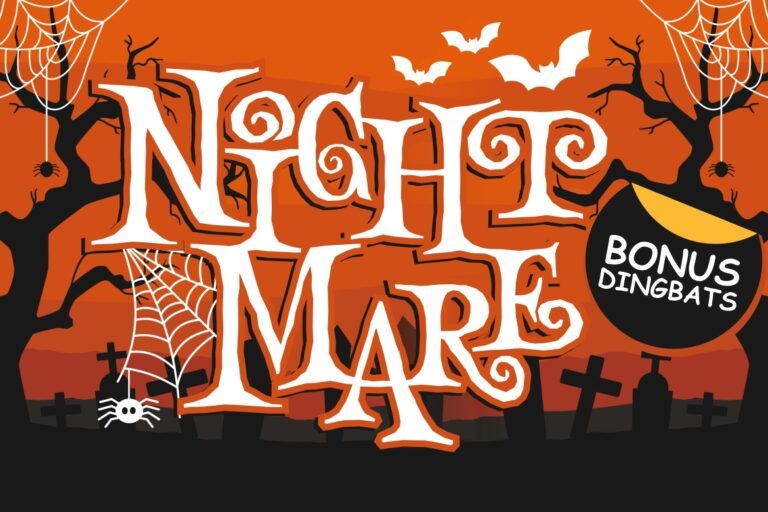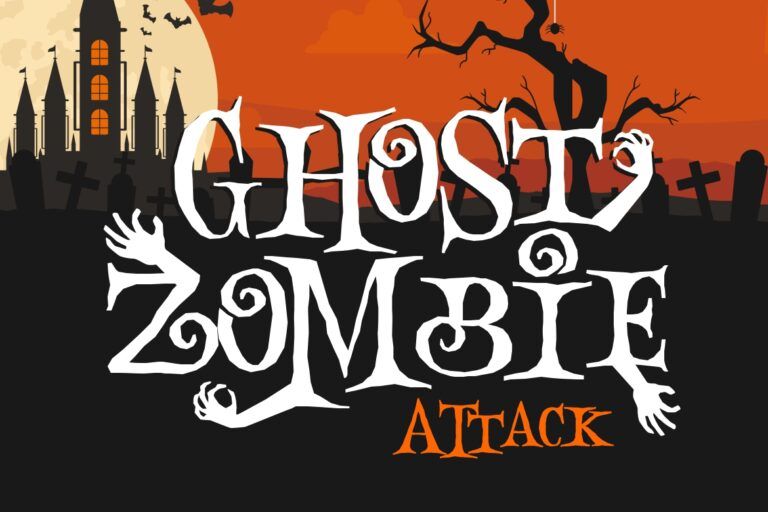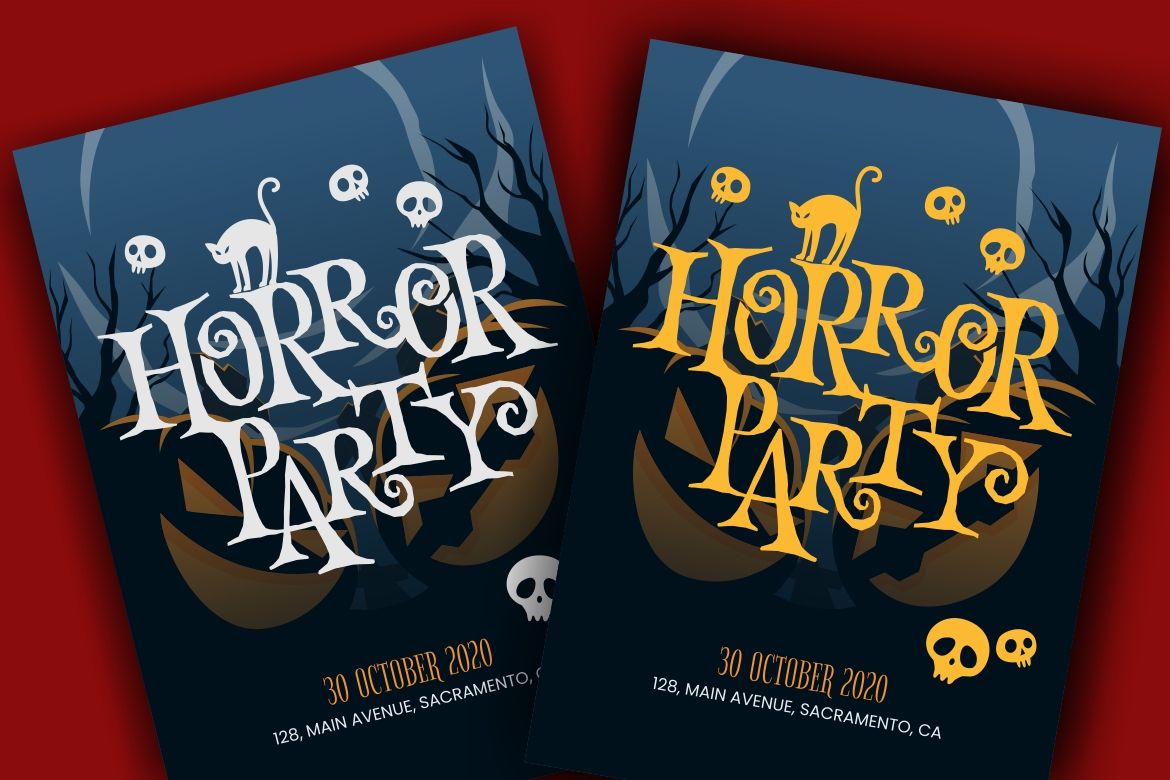
Creepy Fonts Express Nightmare in Your Design
Have you ever felt haunted by a piece of design or writing with creepy fonts?
Maybe you read it in a Halloween poster, or on a horror movie title that triggers a nightmare after you watched it.
Just like nightmares, the visual from the movie and its poster felt irrational and frightening. Yet, somehow they leave you lasting impressions. They linger in your mind.
You might wonder how creepy fonts, horror themed pieces of art, could leave such an impression on you. The design not only looks scary, but also feels scary. It somehow attracts you as an audience into a certain mood, emotion, and psychological space.
Let’s take a look at how fonts make such a powerful design element.
Psychology of Creepy Fonts
Psychology suggests that fonts carry meaning. Hence, typeface could affect audiences’ reaction. How people perceive the meaning of fonts depends on the cultural associations, historical usage, and the visual characteristics of the typeface itself.
Fonts help in connotating the message the visual art tries to convey. They influence the mood, the vibe and emotional perceptions.
Furthermore, these emotional reactions and perceptions show how fonts are such an important tool for branding and marketing. The way the fonts displayed alongside the graphic image carries the intended message.
Fonts supports the design in communicating the message. Applying the right fonts plays a crucial role for aligning the message with the intended audience’s responses.
For instance, in horror movie posters or halloween decorations. The use of creepy vibe fonts insinuates the spooky and creepy feeling. That is what the creator desired – to make you feel the creepy vibe that stays in your mind.
Creepy Fonts as Art Therapy
Who would expect that the word ‘creepy’ would be in the same sentence with therapy? What an unexpected twist.
The fact is, pieces of art, even horror themed ones, could be a form of therapy.
In the field of psychology, there is a method known as art therapy, in which you can express your deepest emotion through music, body movement, drawing, and painting.
The advancement of technology in this era allows new innovation of art therapy through graphic design.
Research and practitioners provide proof of the benefits of graphic design as art therapy. They include the improvement of emotional wellbeing and overall positive mental health condition.
Graphic design facilitates self-expression and emotional processing, just like drawing does. It allows people to dive into their feelings and emotions through visual storytelling.
Integration of graphic design into art therapy improves the therapeutic experience. This innovation of art therapy offers a diversity of ways of connecting with their inner selves which helps them heal.
Visualizing your nightmare through graphic design—surprisingly—counts. You can explore fonts that look broken, raw, twisted, or tense becomes a form of emotional release. There, you got not only a design, but also a reflection.
Bringing Nightmares into Life
Now, let’s get to know how to express nightmares and creepy feelings into graphic design.
Research shows that art therapy utilizes graphic design elements to help individuals express their feelings and experiences. These elements translated the emotions and feelings the designer intended it to have, which were rooted in their own emotions.
Fonts are part of the elements that convey the horror vibe in a design. The vibe that eventually would stay in your mind. Creepy fonts complement other elements such as; color, shape, and imagery.
⦁ Imagery
Image represents the depiction of situation and emotion you could not convey verbally. It talks to you without words, yet you can listen. Therefore the image of horror would haunt you.
⦁ Composition
The picture you draw or design, consists of a composition of shape, line, and color. The arrangement of those elements builds the story and emotions being delivered to audiences.
The sight of how the elements are placed leaves an impression in audiences’ hearts.
⦁ Shape
Before becoming a full image, the design might start from drawing shapes. Those shapes will make the design to have a form to be read by audiences.
⦁ Color
Color holds meaning. It describes what emotional state you are in, expresses emotions, and feelings. It enriches the imagery through which the message regarding your feelings or emotions are conveyed.
⦁ Typography
This is where the message is said.
Fonts and typography hold an important role in representing your emotions. The typeface used in graphic design or drawing could also affect your emotional perception. This includes the creepy fonts that deliver the feeling of horror in a design.